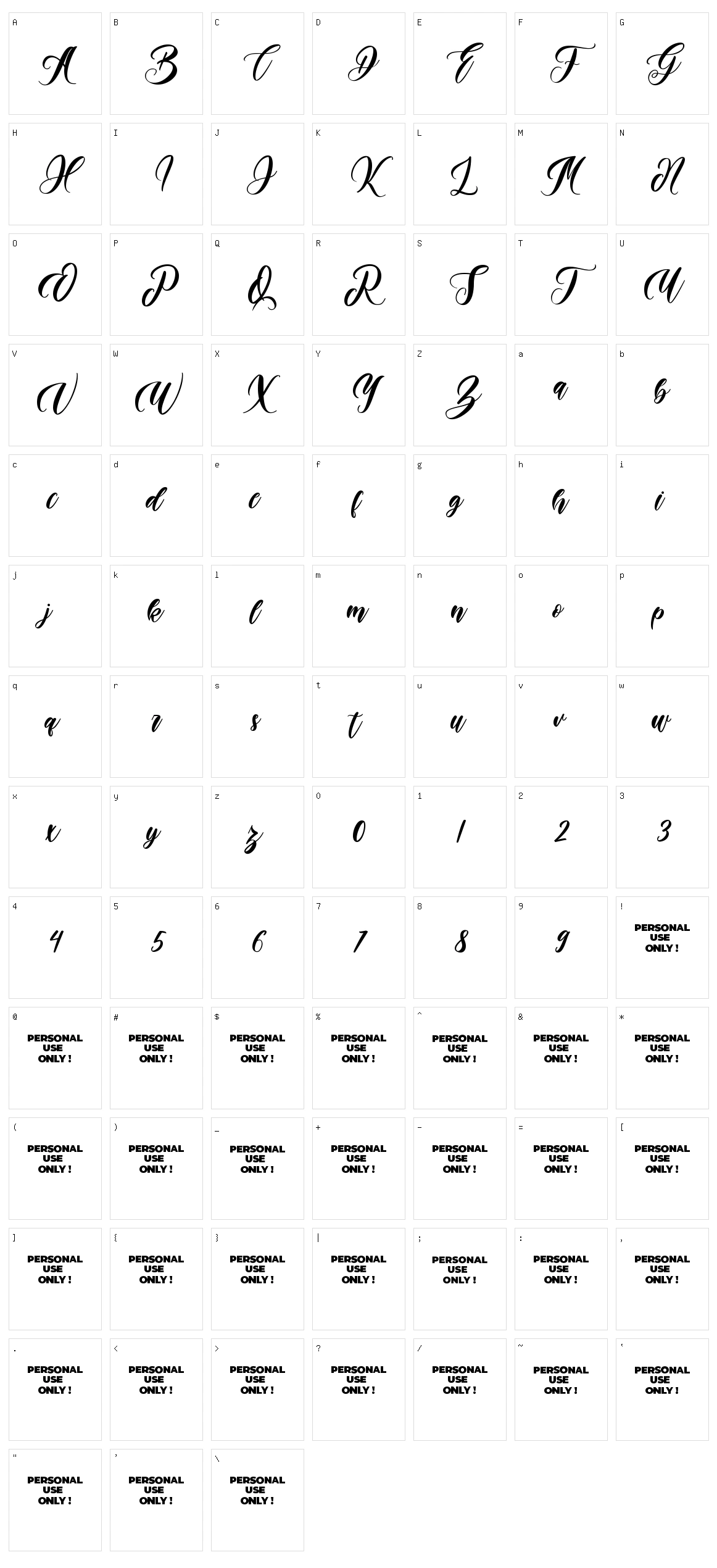
The free font Mallaba is carefully designed by FallenGraphic Studio, showcasing a thoughtful balance of creativity and usability and falls under the Script font style. When you download the ZIP file, it contains only 35.84 KB of font files, making it lightweight and quick to download. Please review the license details below to understand permitted usage and distribution rights. If license information is not available, we recommend using this font for personal projects only or contacting the author directly for commercial usage permissions.